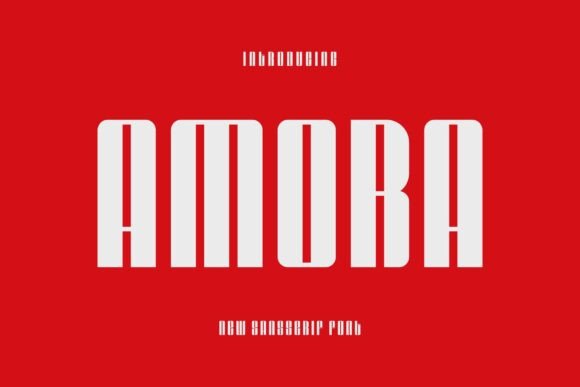
Introducing Amora Font: The Epitome of Elegance and Modernity
In the realm of typography, fonts play a pivotal role in conveying messages, evoking emotions, and creating lasting impressions. Among the myriad of fonts available, Amora Font stands out as a beacon of elegance, refinement, and modernity. This beautiful sans serif font has been meticulously crafted to cater to the diverse needs of designers, businesses, and individuals seeking to elevate their visual communication.
What is Amora Font?
Amora Font is a stunning sans serif font that exudes classiness, sophistication, and contemporary flair. Its clean lines, precise curves, and balanced proportions make it an ideal choice for a wide range of applications, from logos and branding to invitations, stationery, wedding designs, social media posts, and more.
Key Features of Amora Font
- Elegant and Refined Design: Amora Font boasts a sleek and polished design that lends an air of sophistication to any project.
- Versatility: This font is incredibly versatile, making it suitable for various applications, including logos, branding, invitations, stationery, wedding designs, social media posts, and more.
- Modern Look: Amora Font’s modern aesthetic ensures that your designs stay fresh, contemporary, and visually appealing.
- Easy to Read: The font’s clear and legible design makes it easy to read, even at smaller sizes.
Creative Ways to Use Amora Font
Amora Font’s versatility knows no bounds. Here are some creative ways to utilize this stunning font:
- Logo Design: Create a lasting impression with a logo that incorporates Amora Font, perfect for businesses, startups, and entrepreneurs.
- Branding: Establish a strong brand identity with Amora Font, ideal for companies seeking to rebrand or refresh their image.
- Wedding Designs: Add a touch of elegance to wedding invitations, stationery, and decorations with Amora Font.
- Social Media Posts: Elevate your social media presence with eye-catching posts and graphics featuring Amora Font.
- Invitations and Stationery: Create beautiful invitations, business cards, and letterheads that showcase Amora Font’s refined design.
The Benefits of Using Amora Font
By incorporating Amora Font into your designs, you can reap numerous benefits, including:
- Enhanced Visual Appeal: Amora Font’s elegant design adds a touch of sophistication to any project.
- Improved Readability: The font’s clear and legible design ensures that your message is conveyed effectively.
- Consistency: Amora Font’s consistent style and tone help establish a strong brand identity.
- Flexibility: This font is suitable for various applications, making it an excellent addition to your design arsenal.
Tips and Tricks for Using Amora Font
To get the most out of Amora Font, follow these expert tips:
- Pair with Other Fonts: Experiment with pairing Amora Font with other fonts to create visually appealing combinations.
- Adjust Font Sizes: Adjust font sizes to create visual hierarchy and emphasize important information.
- Use Colors Wisely: Select colors that complement Amora Font’s elegant design and enhance your message.
- Experiment with Styles: Take advantage of Amora Font’s various styles and weights to add depth and interest to your designs.
In conclusion, Amora Font is a stunning sans serif font that offers a perfect blend of elegance, refinement, and modernity. Its versatility, readability, and aesthetic appeal make it an excellent choice for designers, businesses, and individuals seeking to elevate their visual communication. By incorporating Amora Font into your designs, you can create visually stunning projects that leave a lasting impression.